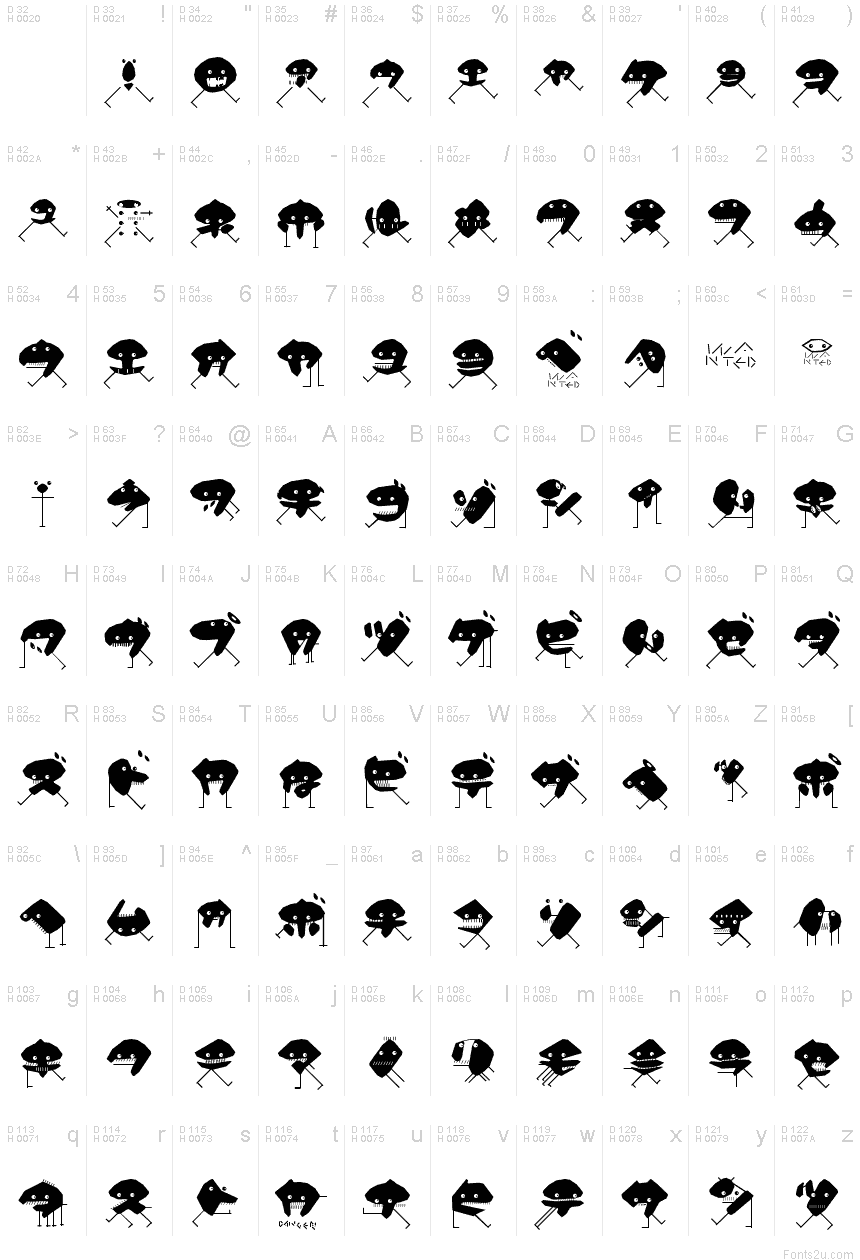
WantedTerrorists by M. Klein is a free cartoon alien dingbat font built from scrappy, hand-drawn creatures. Each figure combines a broad lopsided body with staring eyes, tiny teeth, and wiry limbs. The uneven outlines and changing expressions give the set the look of oddball suspects from an underground comic.
Indie game studios and novelty brands can use these characters as mascots across packaging, merchandise, posters, and digital graphics. Their simple silhouettes can double as figures in comic scenes or playful editorial illustrations.